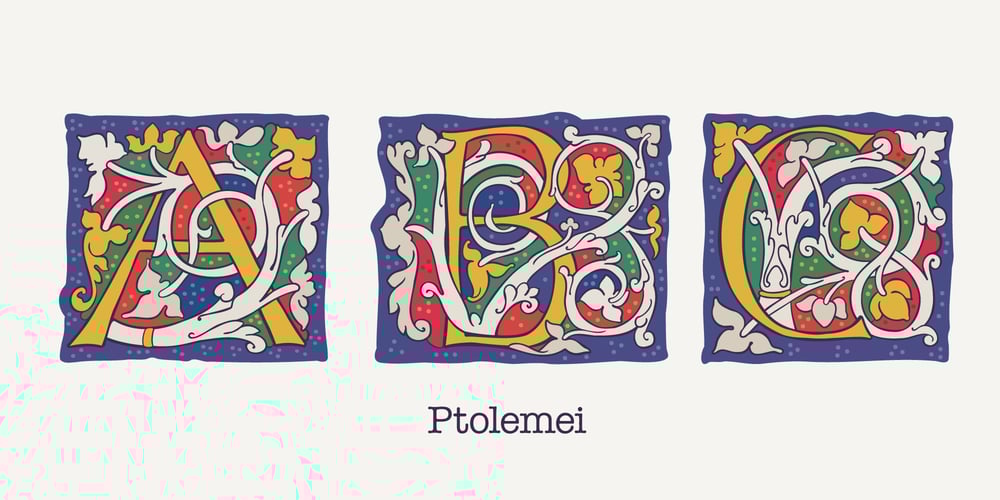
Ptolemei Font Family was designed by Roman Korolev and published by Kaer. Ptolemei contains 3 styles and family package options. These initials set I collected from Early 15th century manuscript called Claudii Ptolemei Cosmographia, created by the famous Greek scholar Claudius Ptolemaeus in the middle of the 2nd century.The origins of this style called White Vine with interlaced patterns and vine should be found in Ottonian Renaissance manuscripts.The highest level of porthole craftsmanship points to the Florentine workshop, headed by Francesco d’Antonio del Chierico, as the most likely place of execution.—*You can use color fonts in PS CC 2017+, AI CC 2018+, ID CC 2019+, macOS 10.14 Mojave+ **Please note that the Canva & Corel doesn’t support color fonts!**Please download this test file with only A letter ( https://www.dropbox.com/s/u3novoj7mm2vrth/Ptolemei-Test.otf?dl=0 ) to check your app & system.*—Please feel free to request any help you need: kaer.pro@gmail.comBest, Roman.Thank you!